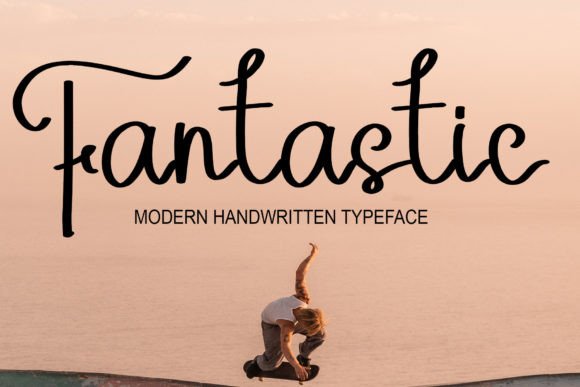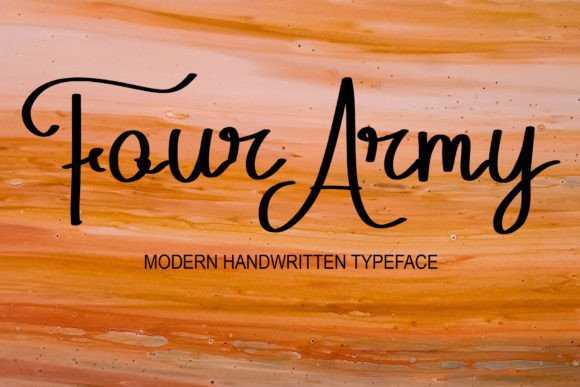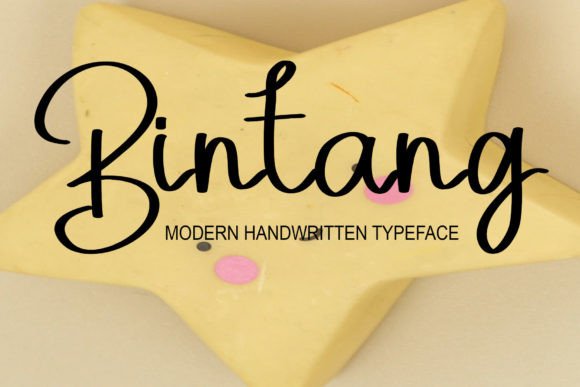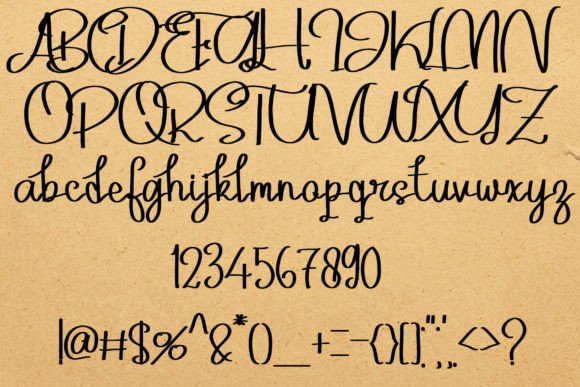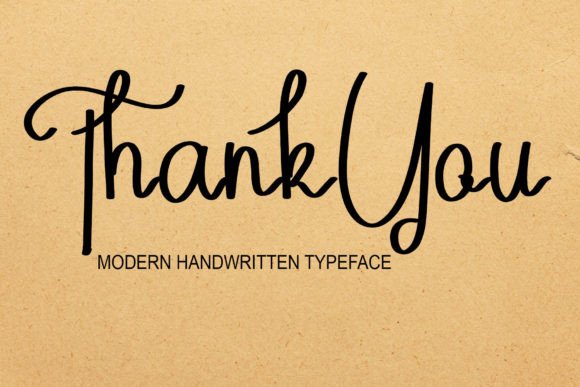
Kukting Jhiksy Font
About Kukting Jhiksy Font
Kukting Jhiksy font is a beautifully crafted handwritten script created with great care using a tablet. It perfectly blends simplicity with style, making it an excellent choice for a variety of design projects that require a personal and elegant feel.
Handcrafted for Authenticity
This font captures the essence of natural handwriting, featuring smooth and flowing strokes that add warmth and personality to any text. Designed with precision, Kukting Jhiksy balances readability with artistic flair, making it both functional and visually appealing.
Versatile for Many Uses
Kukting Jhiksy is suitable for a wide range of applications. It works wonderfully on websites, wedding invitations, business cards, and personal signatures. Additionally, it shines in advertising materials, whether for product promotions or other marketing campaigns, providing a modern yet approachable aesthetic.
Simple, Yet Stylish Design
Despite its straightforward appearance, Kukting Jhiksy has a stylish edge. The clean lines and graceful curves ensure your text stands out with elegance and charm. This font is perfect for those who want a modern handwritten look that remains timeless and versatile.
Key Features of Kukting Jhiksy Font
• Handwritten script crafted with a tablet
• Ideal for websites, wedding invitations, business cards, and signatures
• Clean, simple, and stylish design
• Suitable for various advertising and branding projects
Why Choose Kukting Jhiksy?
Kukting Jhiksy offers a refined blend of elegance and simplicity. Its versatility makes it a valuable tool for creatives seeking a handwritten font that adapts well to many design contexts. Whether for formal or casual projects, this font brings a personal touch that elevates your work.
In summary, Kukting Jhiksy font is a sophisticated and adaptable handwritten script that enhances any project with charm and style. Its thoughtfully designed strokes and broad usability make it a go-to font for many creative professionals.